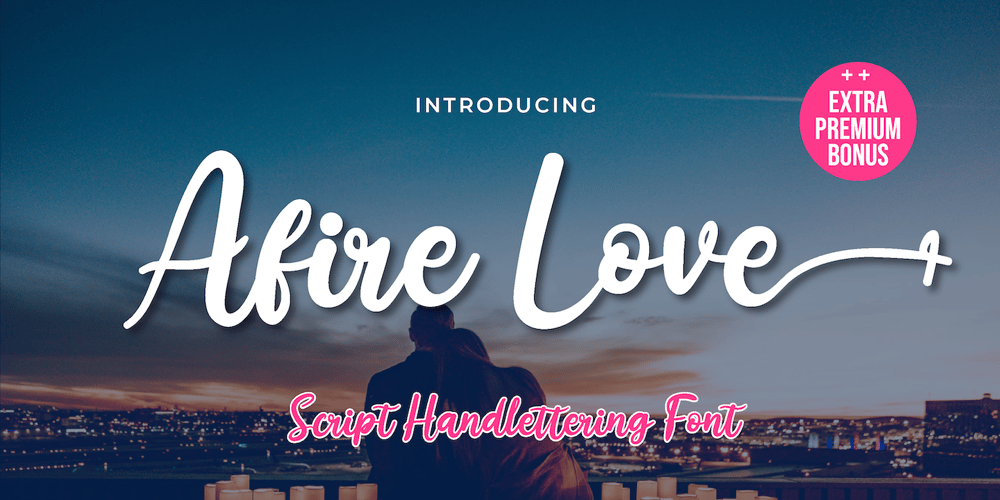
Afire Love Font Family was designed by Rozikan and published by Twinletter. Afire Love contains 1 styles and family package options. Introducing our newest Afire Love Font.This font is created with original hand drawn strokes for a relaxed, beautiful and elegant impression.This font also offers beautiful abstract typographic harmony for a wide variety of design projects, including natural handwriting in digital form for designs, quote designs, for social media business designs, advertisements, trademarks, promotional banners, posts, posters, signatures, and all designs require handwriting or whatever design you want.This font is equipped with uppercase, lowercase, numbers, punctuation marks, swhases and several variations on each character including multi-language.In this font purchase package you will also get a special bonus package from us, namely:1. 10 vector landing page design packages2. cute monsters cartoon kit with vector format3. Premium banner ad template with ppt format4. cartoon animal ice cream pack with vector format5. EDITABLE ESPORT logo designThis font is best suited for open type friendly applications. How to get alternative glyphs from open type fonts: http://adobe.ly/1m1fn4YPUA Character Code – Fully accessible without additional design software.we hope you enjoy this font. Feel free to send whatever message you want to convey.thank youRegardsTwinletter